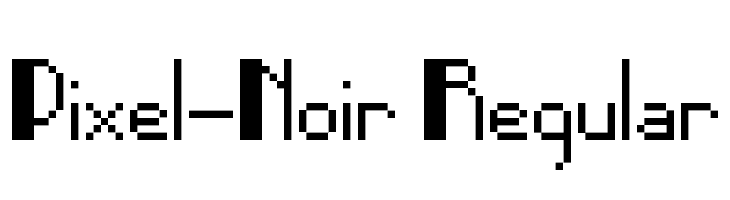
( Mirz123 - Michelle Lehmann - www.scriptmonkeys.us )
A pixelated, retro-style font with a digital and blocky appearance.
( Mirz123 - Michelle Lehmann - www.scriptmonkeys.us )
A pixelated, retro font with a geometric, grid-like design.
( Mirz123 - Michelle Lehmann - www.scriptmonkeys.us )
A pixelated, retro-style font with a digital, grid-like appearance.